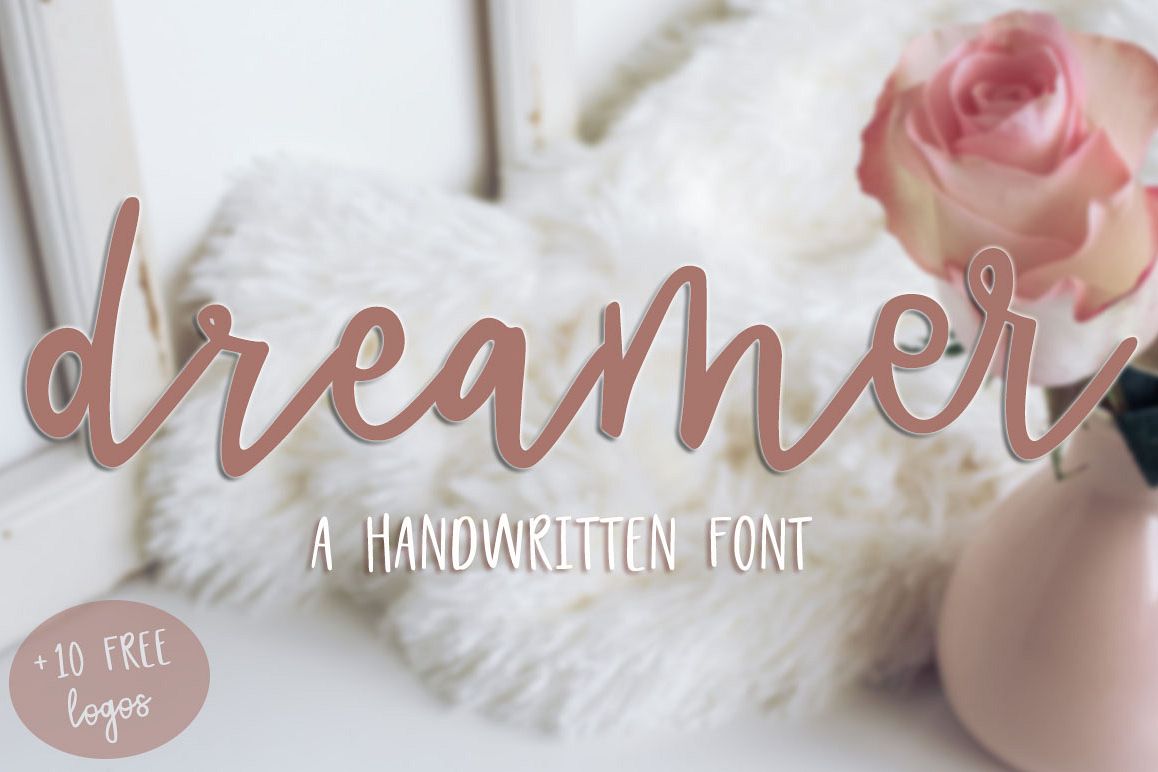
Dreamer script font is EXACTLY what you have been dreaming about!This beautiful font will add so much
"WOW" to your work! Dreamer is perfect to use for your designs, logos, packaging, greeting cards, social media, prints, and more! You definitely won't be disappointed with this font. As you can see from the free logos included, you can get many different looks by using just this
one font!
Dreamer has 7 standard ligatures and 13 discretionary ligatures.